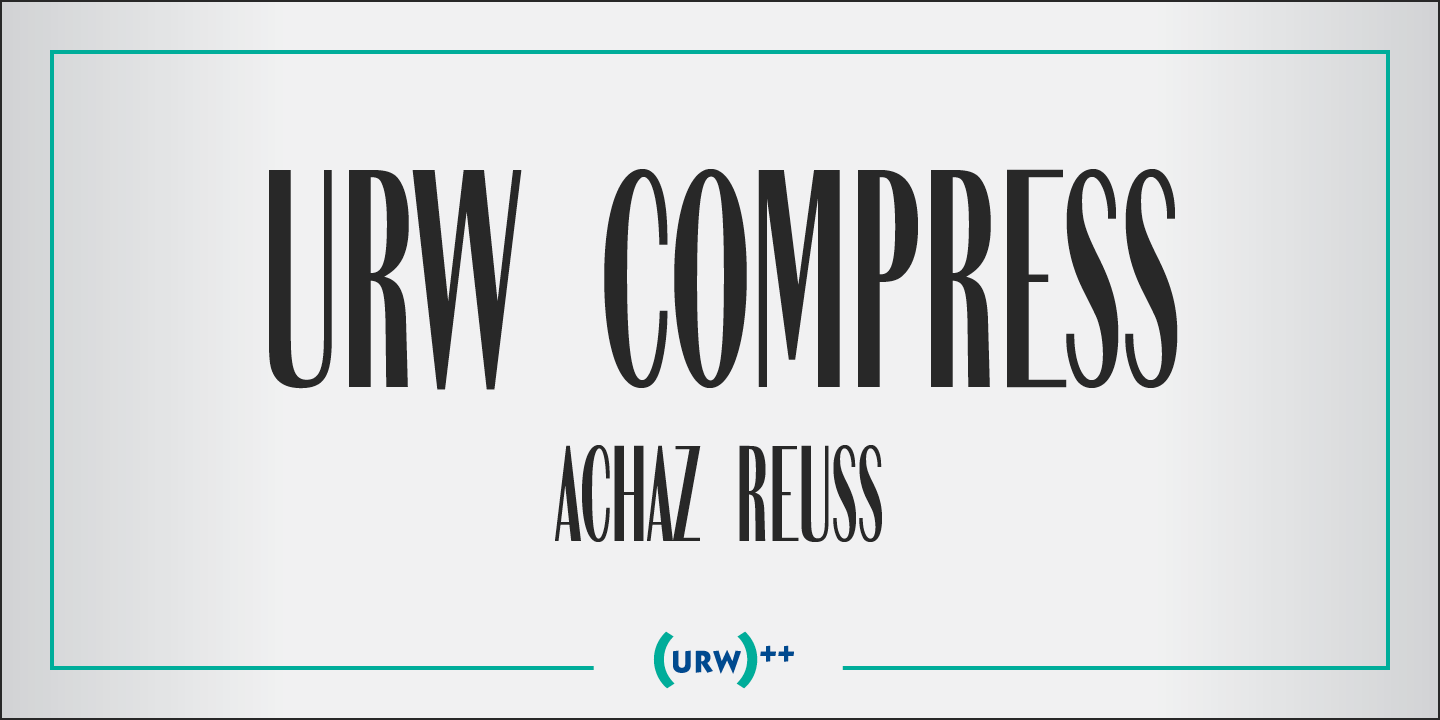
This efficient typeface is perfect for space-constrained layouts, newspaper headlines, magazine columns, mobile app interfaces, data tables, technical documentation, packaging labels, and digital displays that require maximum information density with exceptional readability and efficient space utilization for professional communications.
Compress Font is exciting because it maximizes communication efficiency through its expertly condensed letterforms that deliver exceptional readability while occupying minimal horizontal space. The font's optimized character design and intelligent spacing create the perfect balance between information density and visual clarity, making it ideal for projects that need to convey substantial content within tight layout constraints without sacrificing professional appearance or reader comprehension.
The Compress Font family includes multiple condensed variations and space-saving options, featuring ultra-condensed, semi-condensed, and regular widths, along with corresponding weight variations that provide designers with comprehensive typographic solutions for creating efficient layouts and space-optimized communications across all media formats.
Maximize your layout efficiency with Compress Font Free Download, a typeface that brings space-saving sophistication to content-heavy design projects. This exceptional font combines maximum information density with optimal readability, making it an indispensable tool for designers working on newspapers, technical manuals, or any project requiring efficient space utilization. The strategically engineered letterforms ensure clear communication while conserving valuable layout space, making this font perfect for achieving professional results in space-constrained environments while maintaining the clarity and efficiency that defines this distinctly practical and professionally optimized typeface.